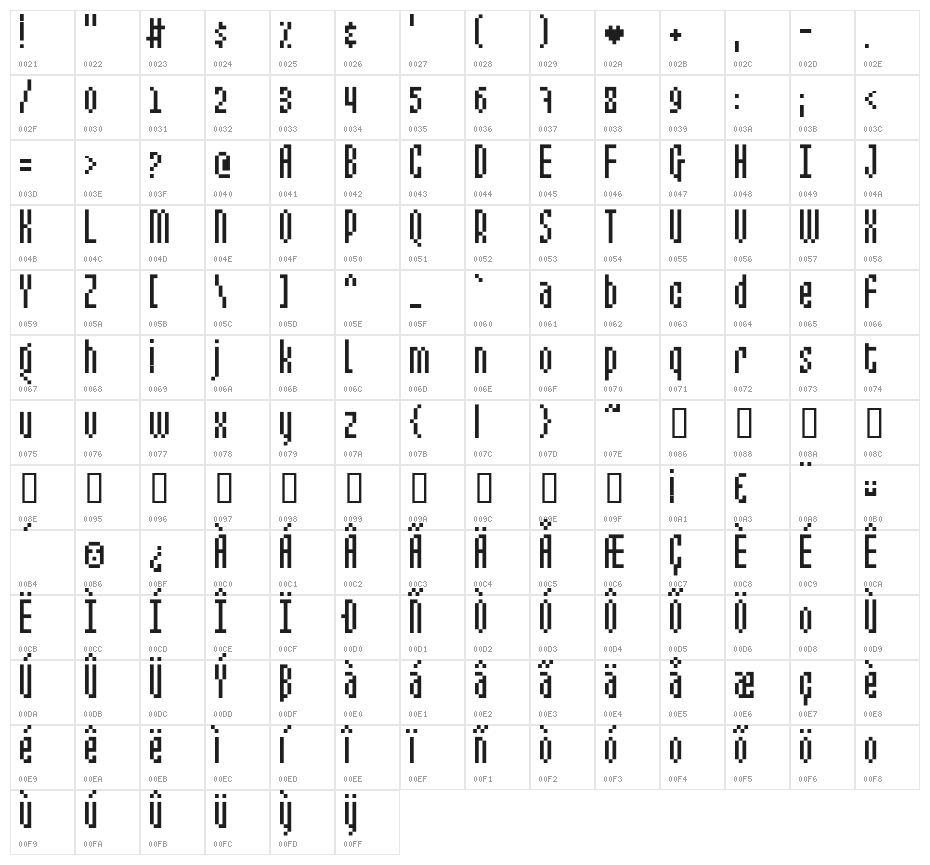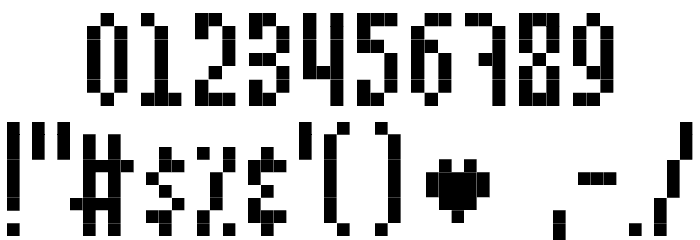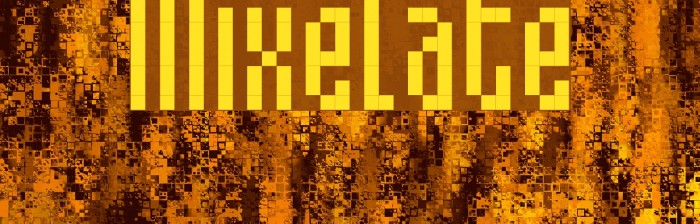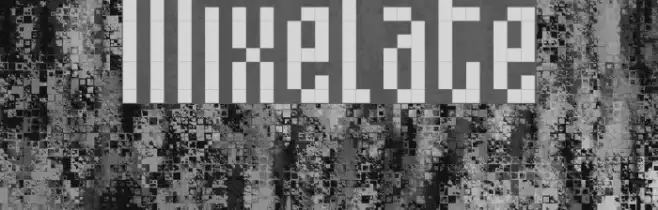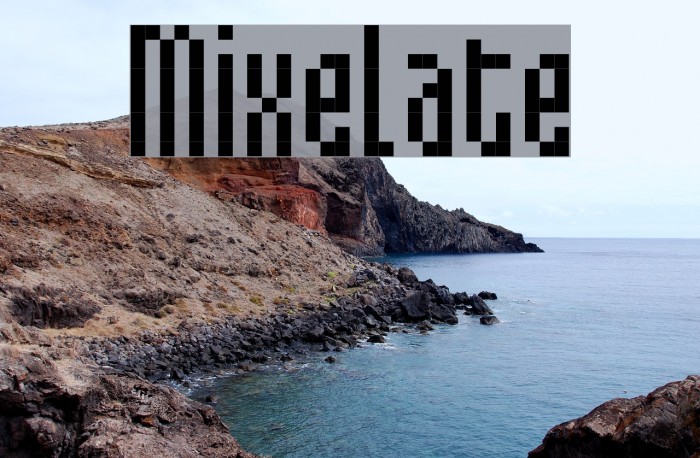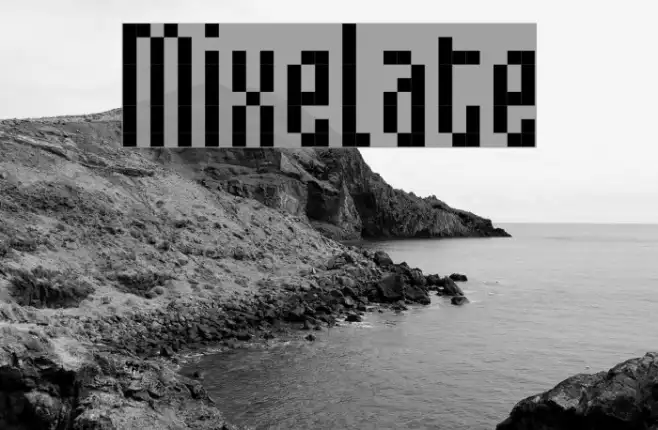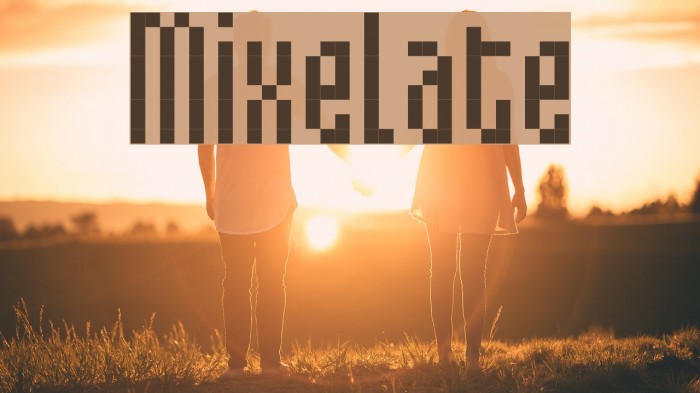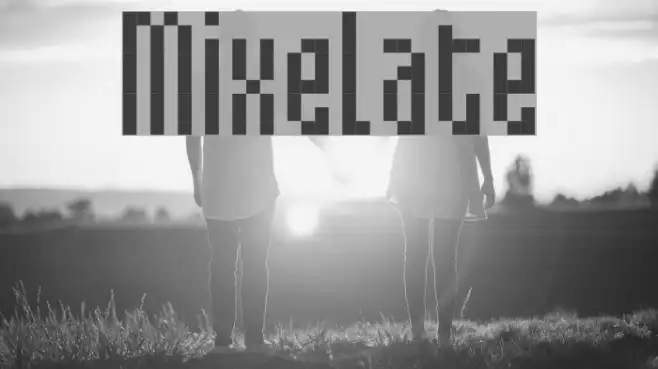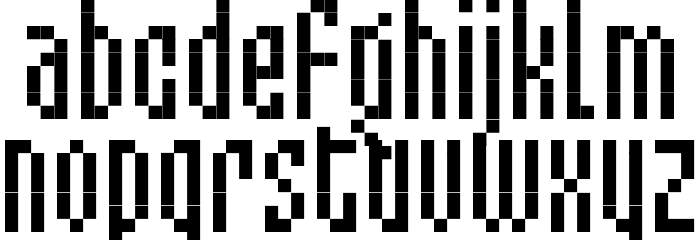
Mixelate Font
Mixelate Description
This font features a pixelated, blocky design reminiscent of early digital displays and retro video games. Each character is constructed from a grid of squares, giving it a distinctly digital and geometric appearance. The uniformity in the height and width of the characters creates a cohesive and structured look. This style is highly legible at various sizes due to its clear and bold lines. The font includes a full set of uppercase and lowercase letters, numbers, and a variety of special characters, making it versatile for different uses. Its nostalgic aesthetic is perfect for projects that aim to evoke a sense of vintage digital technology or gaming culture.
| Proposed Projects | Ideal for video game design, digital art projects, retro-themed posters, and tech-related branding. |